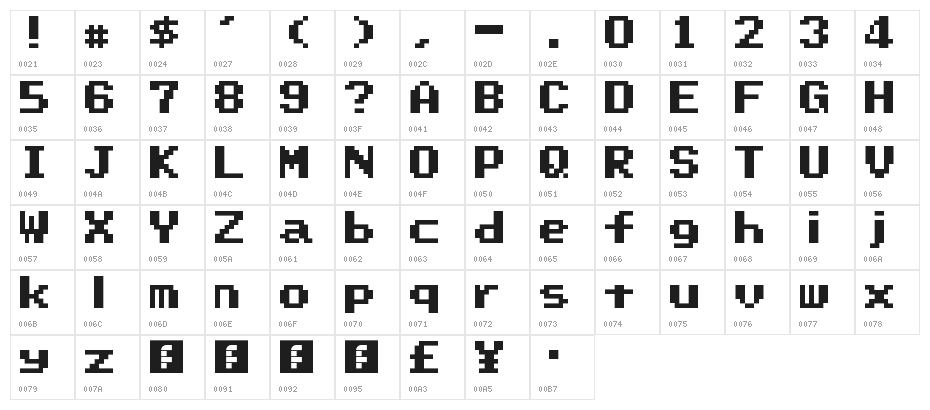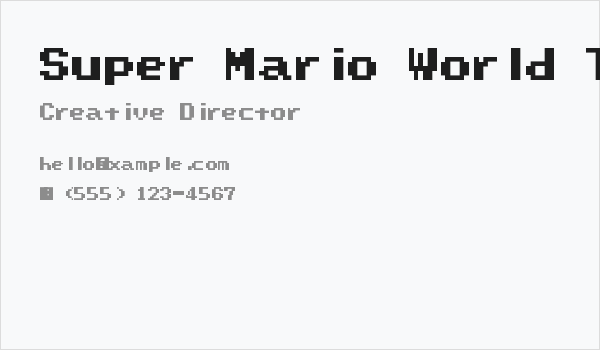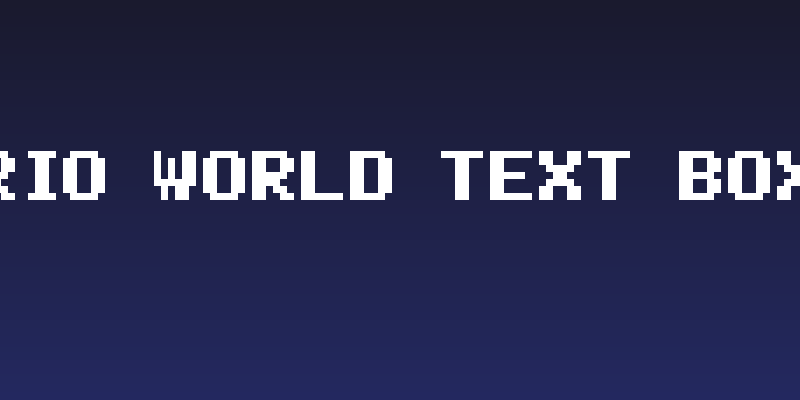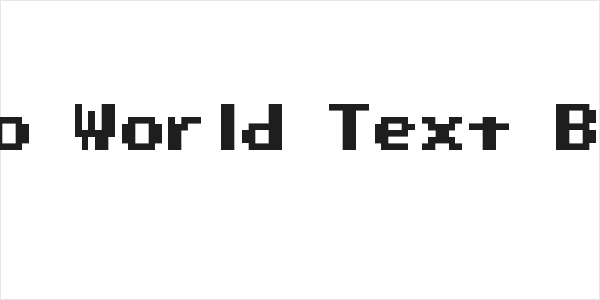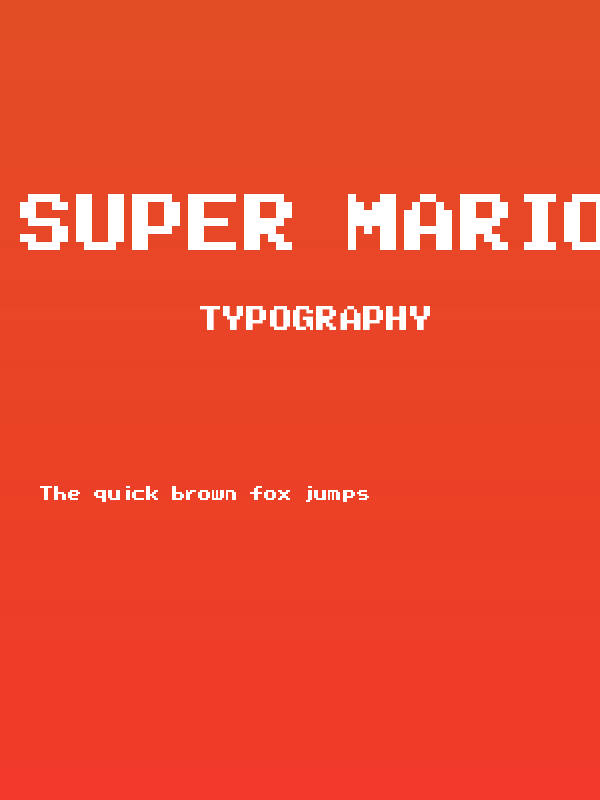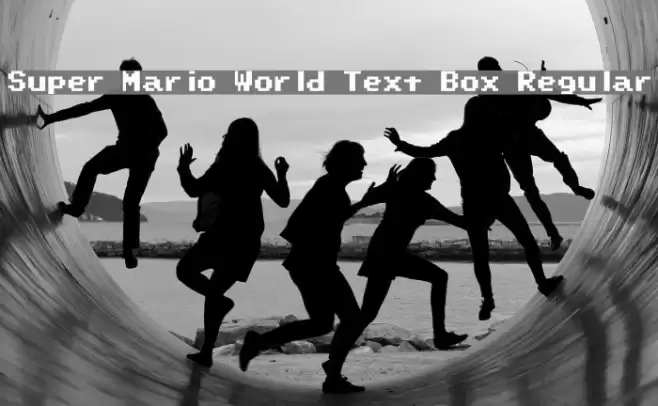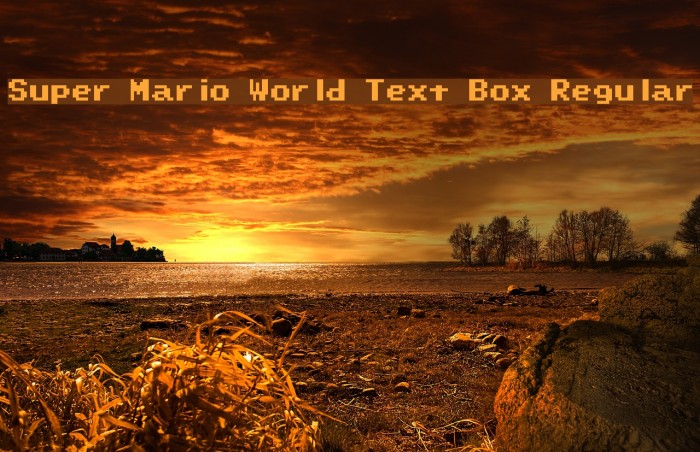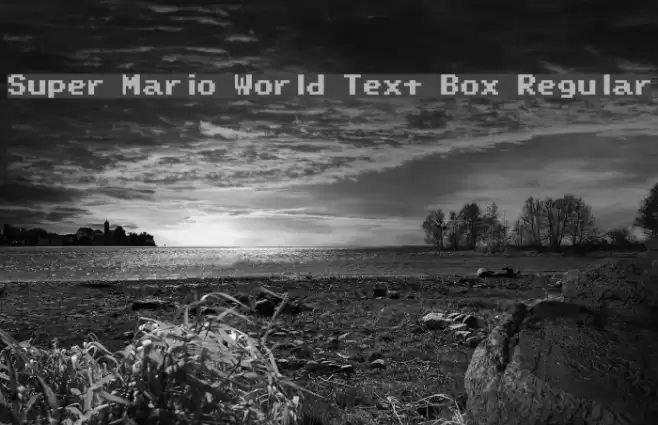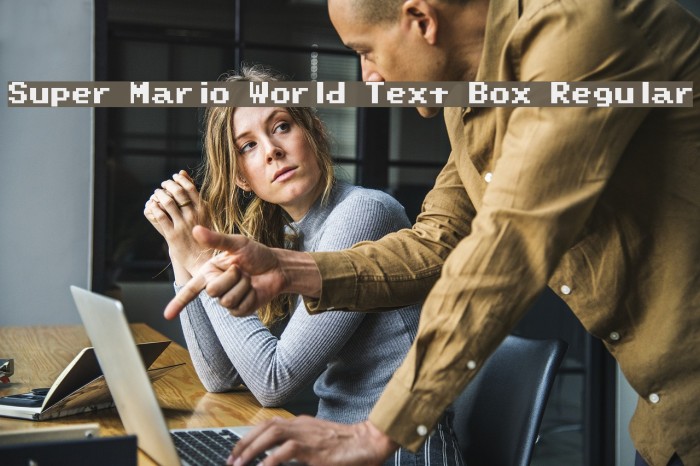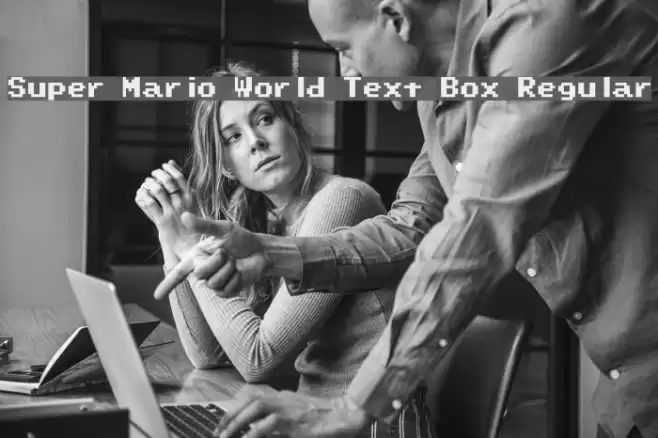
Super Mario World Text Box Regular Font
Super Mario World Text Box Regular Description
This font features a pixelated, blocky design reminiscent of classic video game graphics. Each character is composed of sharp, square edges, creating a retro, digital aesthetic. The uppercase and lowercase letters maintain a consistent height, contributing to a uniform appearance. Numbers and special characters follow the same pixelated style, ensuring visual coherence across all elements. The font's simplicity and clarity make it highly legible, even at smaller sizes. Its nostalgic charm is perfect for projects that aim to evoke a sense of vintage gaming or digital art.
| Use Case | Logos, Headlines, Digital Art |
| Proposed Projects | Ideal for retro video game designs, digital art projects, nostalgic branding, and themed event invitations. |